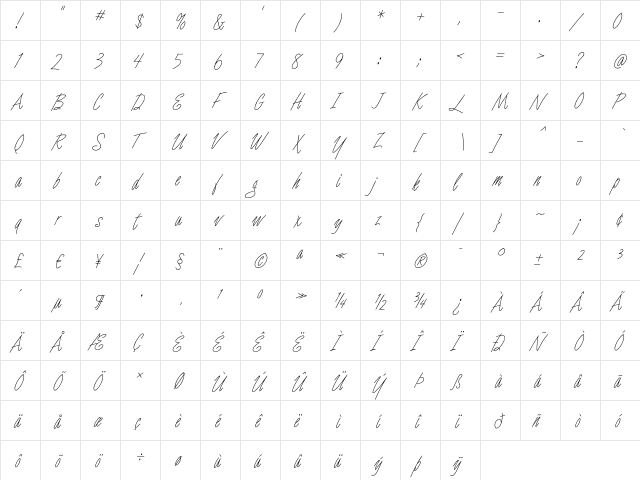
LuceOne Regular Font Preview
LuceOne Regular
Design Context for LuceOne Typeface
LuceOne is a composed and adaptable typeface that performs quietly and consistently across a wide range of design contexts.